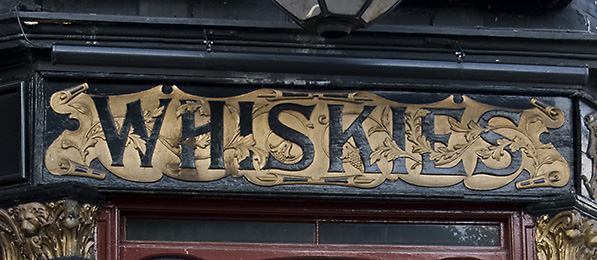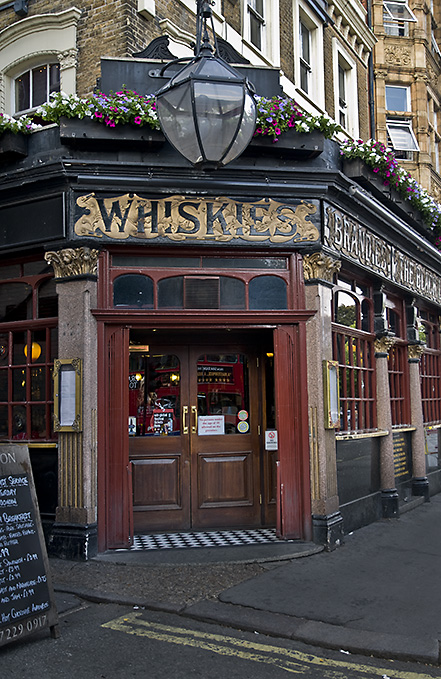
Quite a few years ago I first visited the Black Lion in London England and have gone back many times over the years to see what's been going on and in general just enjoy the splendour of a great pub with amazing signs.
Last year when I was there they had just removed and probably trashed their original signs which were probably from about 1890 and replaced them with "Modern" reproductions. You see those ones all over London done with gold paint. I can imagine the owners just wanting to update. Sure would have been great to see some restoration instead but there we are.
I have written a few articles on how sad this situation is. Some would restore an antique chair but have no knowledge of the value of an antique sign both historically and for the image of their business. I have refused to modernize some signs in the past and educated the customer on why. Other sign makers should do so as well.